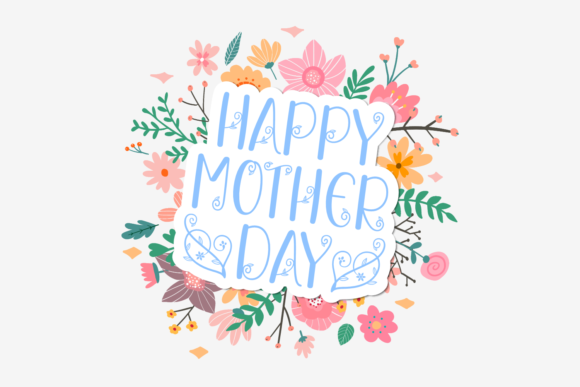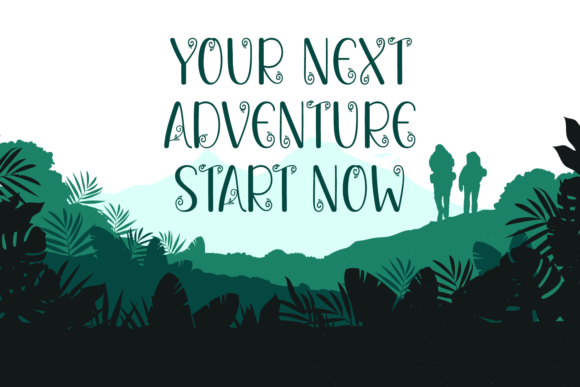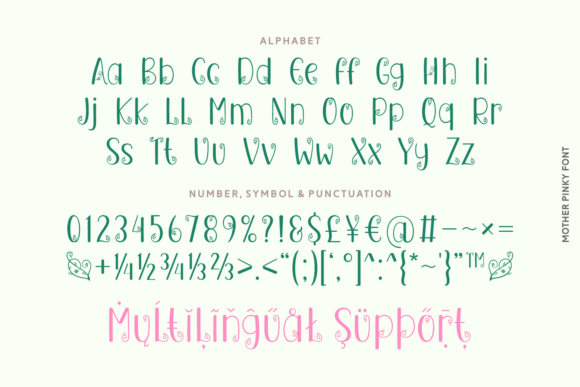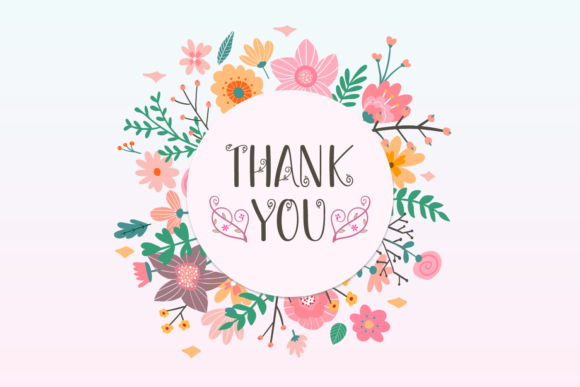
Introduction to Mother Pinky Font Font
Fonts play a crucial role in design, and the Mother Pinky Font font is a typeface that brings both character and versatility to any project. Whether you’re working on a branding project, a website, or a print design, the Mother Pinky Font font offers a unique style that can elevate your work.
Mother Pinky is a spring-themed decorative font.
Inspired by flowers and nature, this creative font has beautifully detailed flowers and leaves on the character set With swirls and curls, this decorative typeface is perfect for spring cards, birthday invitations, covers, posters, quotes, logos, branding, flower shops, wedding cards, etc.
Key Features of Mother Pinky Font Font
Why Choose Mother Pinky Font Font?
The Mother Pinky Font font is more than just a typeface – it’s a design tool that helps you communicate your message with style and clarity. Its unique character set and versatile design make it suitable for a wide range of applications, from elegant invitations to bold headlines.
With its carefully crafted letterforms and balanced proportions, the Mother Pinky Font font ensures readability and visual appeal across all mediums.
What makes Mother Pinky Font font special?
The Mother Pinky Font font stands out with its unique design, exceptional readability, and versatility across various design applications.